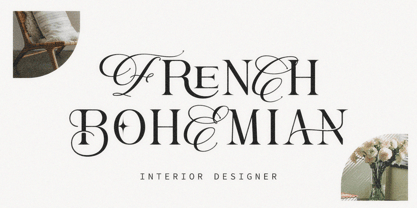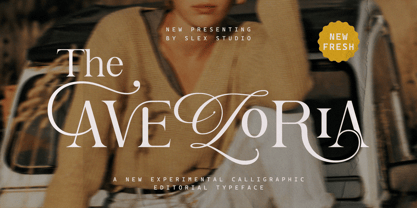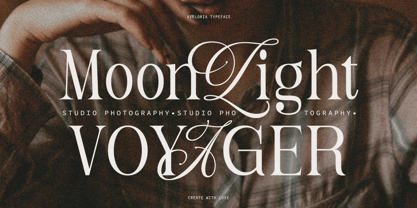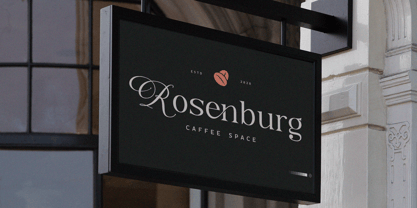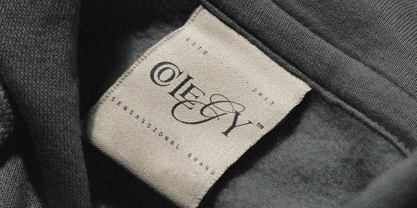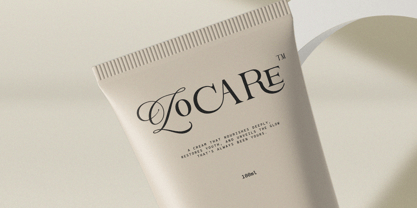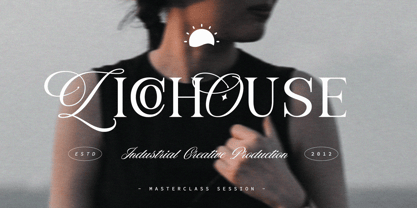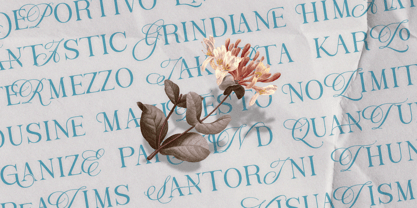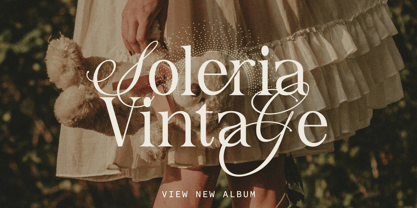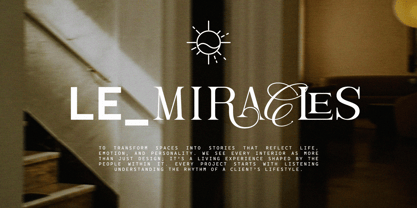
The Aveloria Twice
by Slex Studio
The The Aveloria Twice Font Family was designed by Muhammad Rayyan and published by Slex Studio. The Aveloria Twice contains 42 styles. More about this family
The Aveloria twice is a sophisticated experimental typeface that blends the elegance of calligraphy with the boldness of modern editorial design. Its sweeping curves, sharp contrasts, and graceful ligatures create a timeless, luxurious impression. Designed for high-end branding, fashion editorials, magazines, and logo design, The Aveloria captures both classic beauty and contemporary flair. Every letter is crafted to evoke emotion and sophistication, making your typography stand out with style and personality.
Designers: Muhammad Rayyan
Foundry: Slex Studio